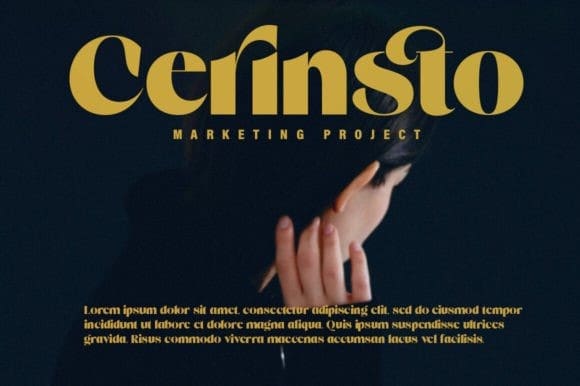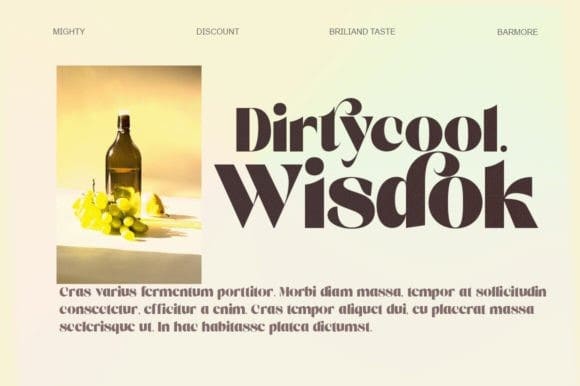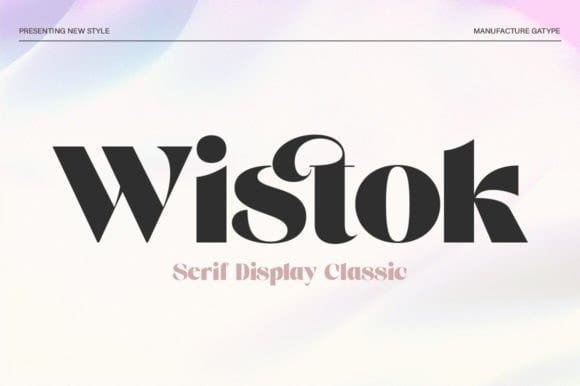
Wistok Font
Wistok Font is a stylish serif display font that effortlessly blends classic sophistication with contemporary finesse. Its meticulously crafted letterforms, adorned with subtle details, exude timeless elegance. Ideal for projects that demand a refined and versatile typeface, Wistok adds a distinctive touch of grace and sophistication to your designs.